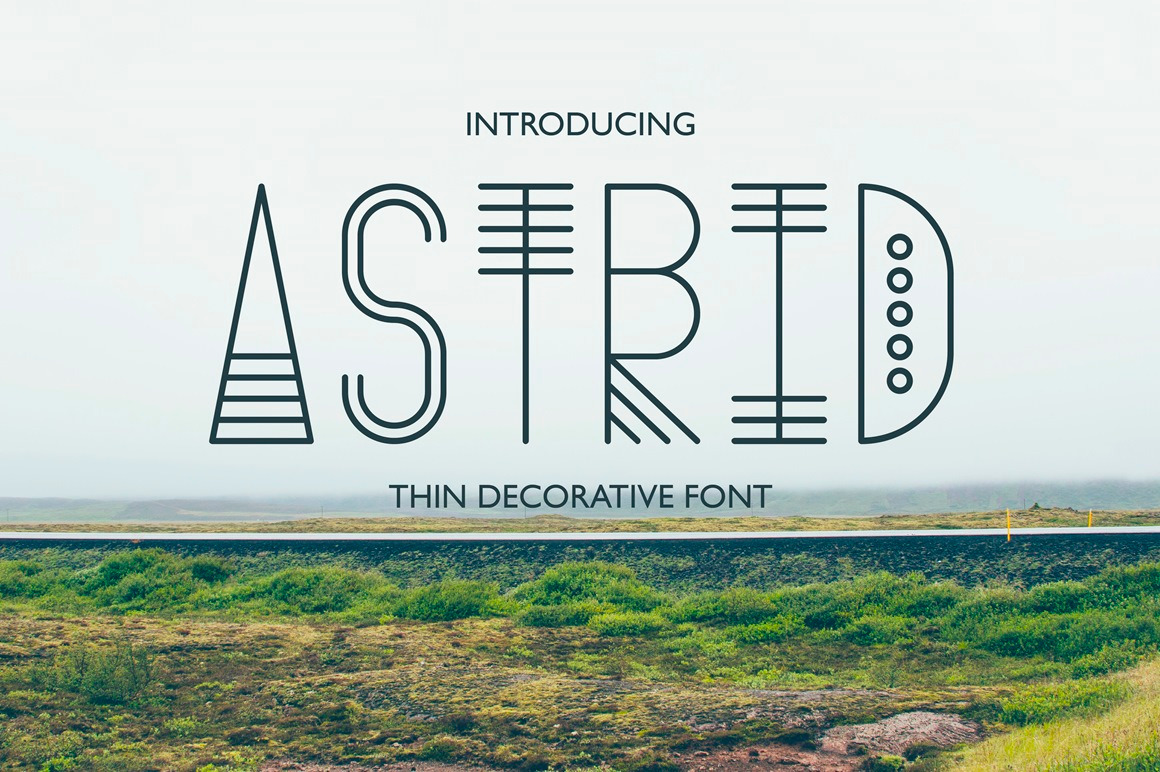
Astrid - Thin Decorative Font
Introducing Astrid - thin decorative font with ethnic nature.
This typeface has a fresh unusual look and it is perfect for logos or brand names, short phrases, advertising presentations, and stylish posters.
Astrid is eclectic - combinations of strict lines and smooth curves create a unique harmony of this font.
Astrid based on the second Unicode block (Latin-1 Supplement). It includes special symbols of most European languages, punctuations, numerals and mathematics signs.